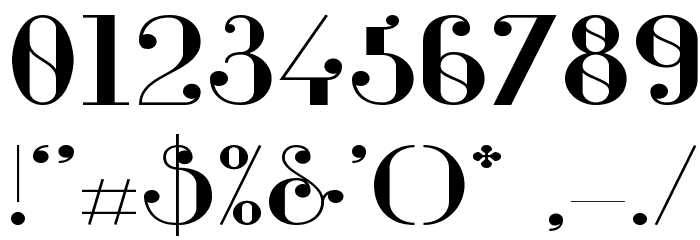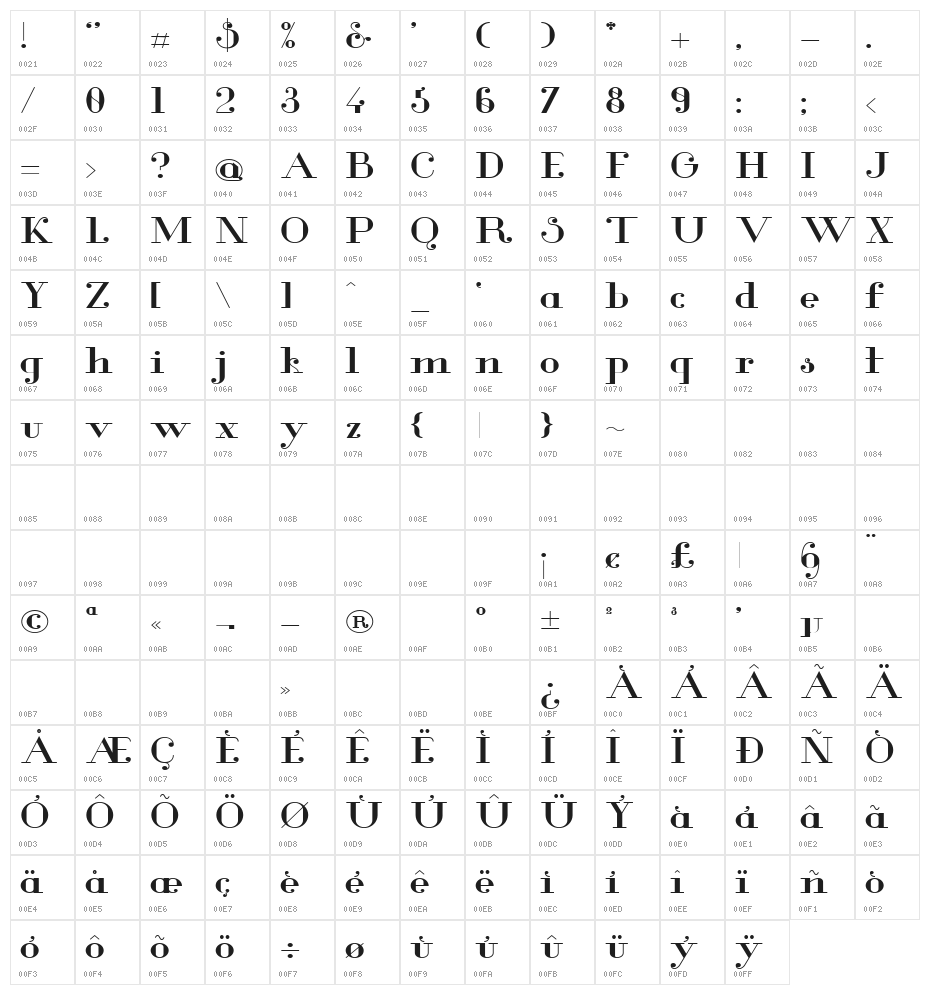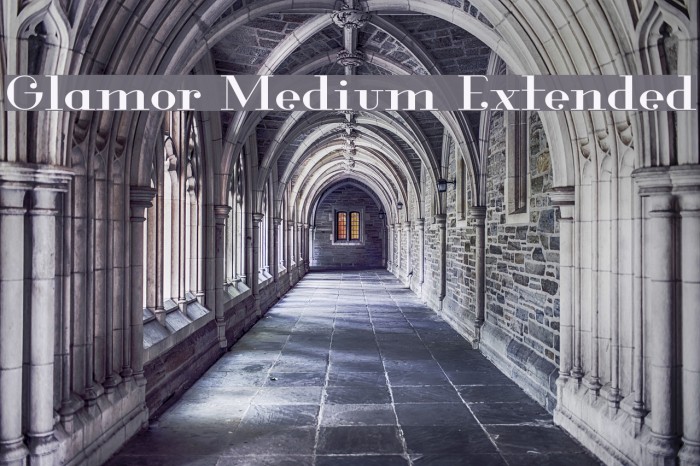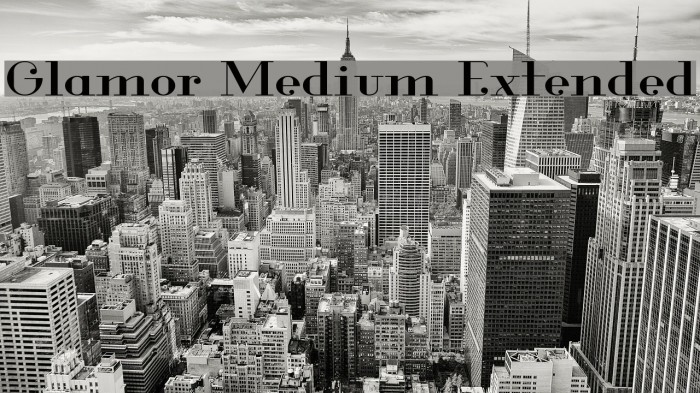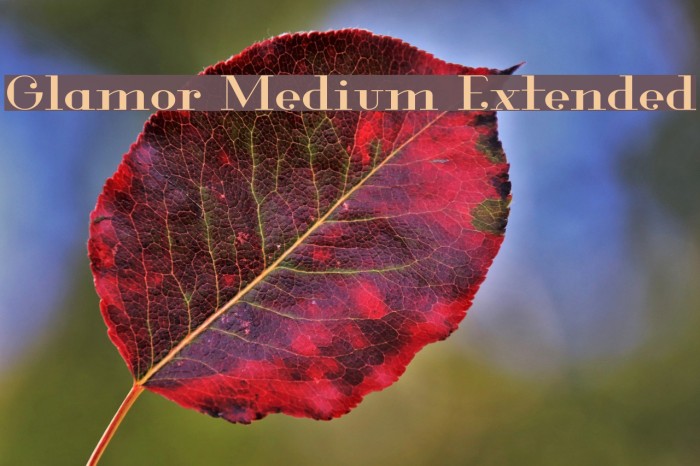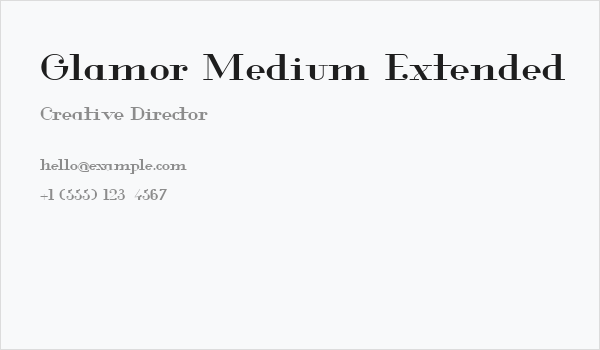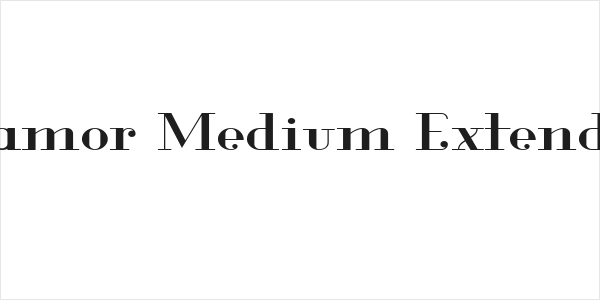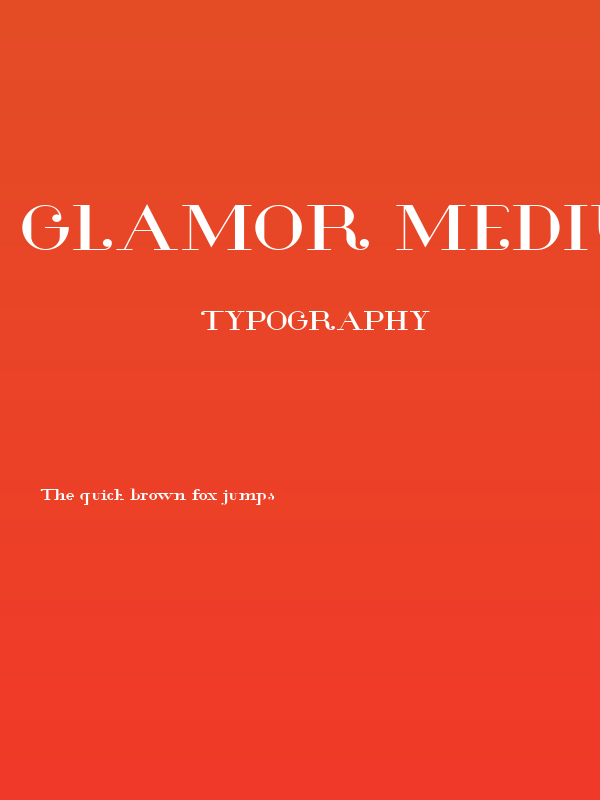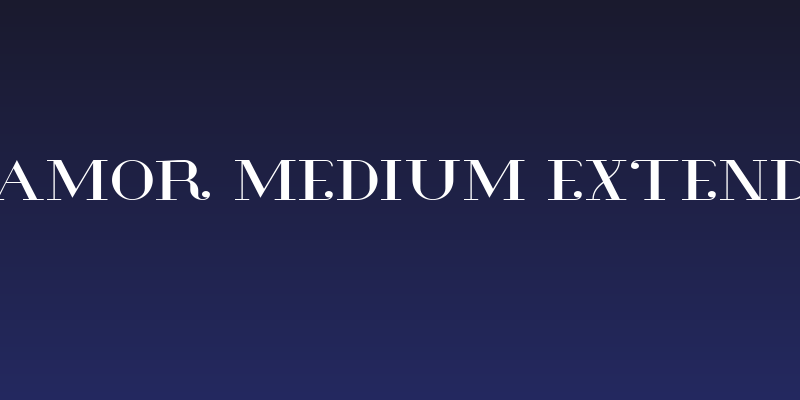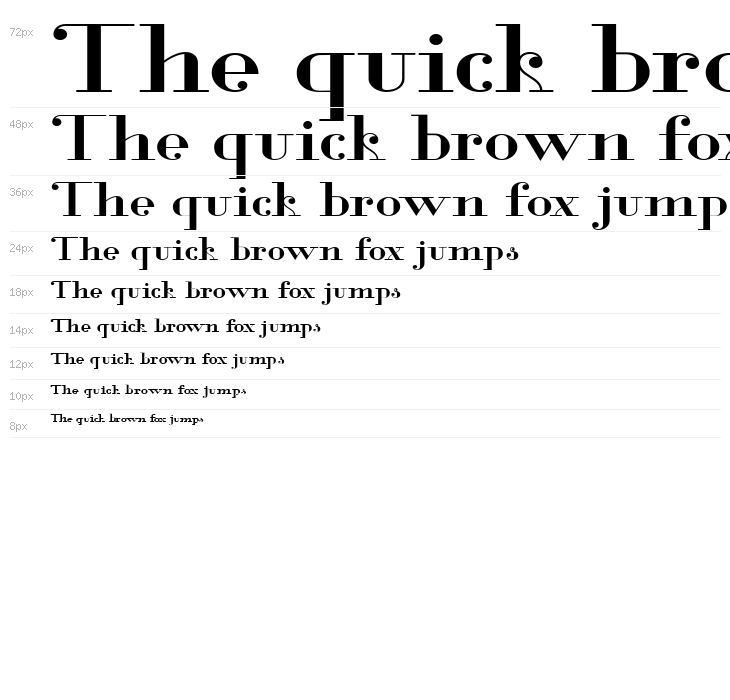
Glamor Medium Extended Font
Glamor Medium Extended Description
This font features a sophisticated and elegant design with high contrast between thick and thin strokes, giving it a refined and luxurious appearance. The characters are extended, providing a sense of grandeur and space. The serifs are pronounced, adding a classic touch, while the overall style remains modern and stylish. The uppercase letters are particularly striking, with unique flourishes that enhance their visual appeal. The lowercase letters maintain a consistent style, complementing the uppercase set. The numerals are bold and distinctive, ensuring readability and impact. Special characters are thoughtfully designed, maintaining the font's cohesive aesthetic.
Proposed ProjectsIdeal for luxury branding, editorial design, high-end packaging, and elegant invitations.